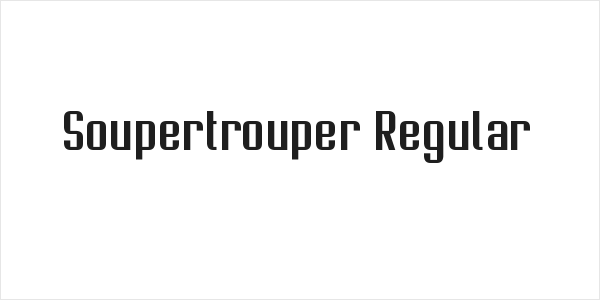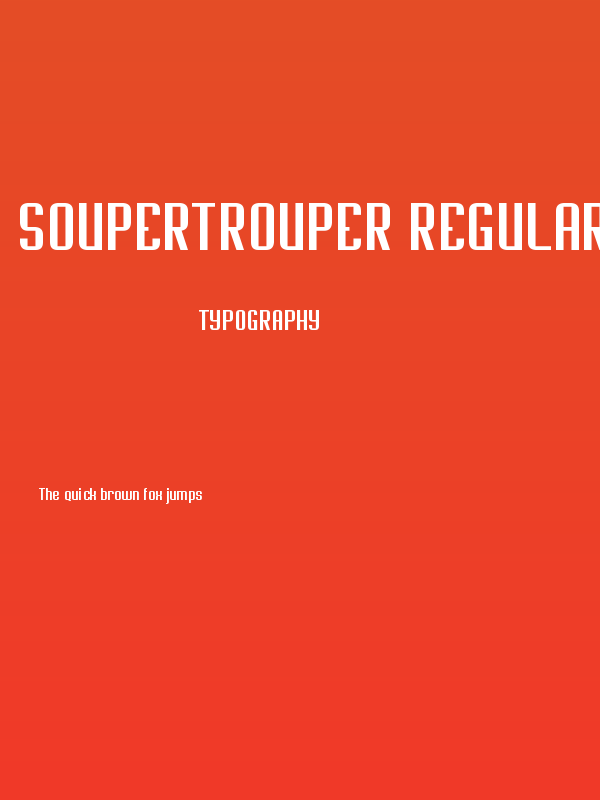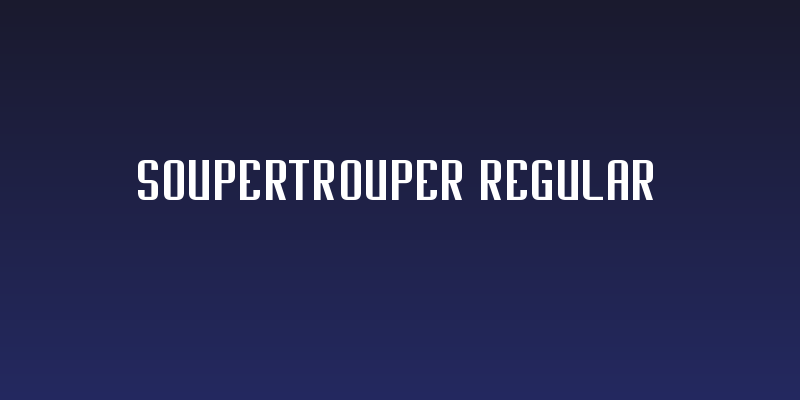
Soupertrouper Regular Font
Soupertrouper Regular Description
This font features a bold and modern design with a geometric and slightly condensed structure. The uppercase letters are tall and narrow, giving a sleek and streamlined appearance. The lowercase letters maintain a consistent height, with rounded edges that soften the overall look. The numerals are uniform in width, complementing the alphabetic characters. Special characters are designed to match the boldness and style of the letters, ensuring a cohesive appearance across all glyphs. This font's strong vertical lines and minimal contrast make it highly legible and suitable for various design applications.